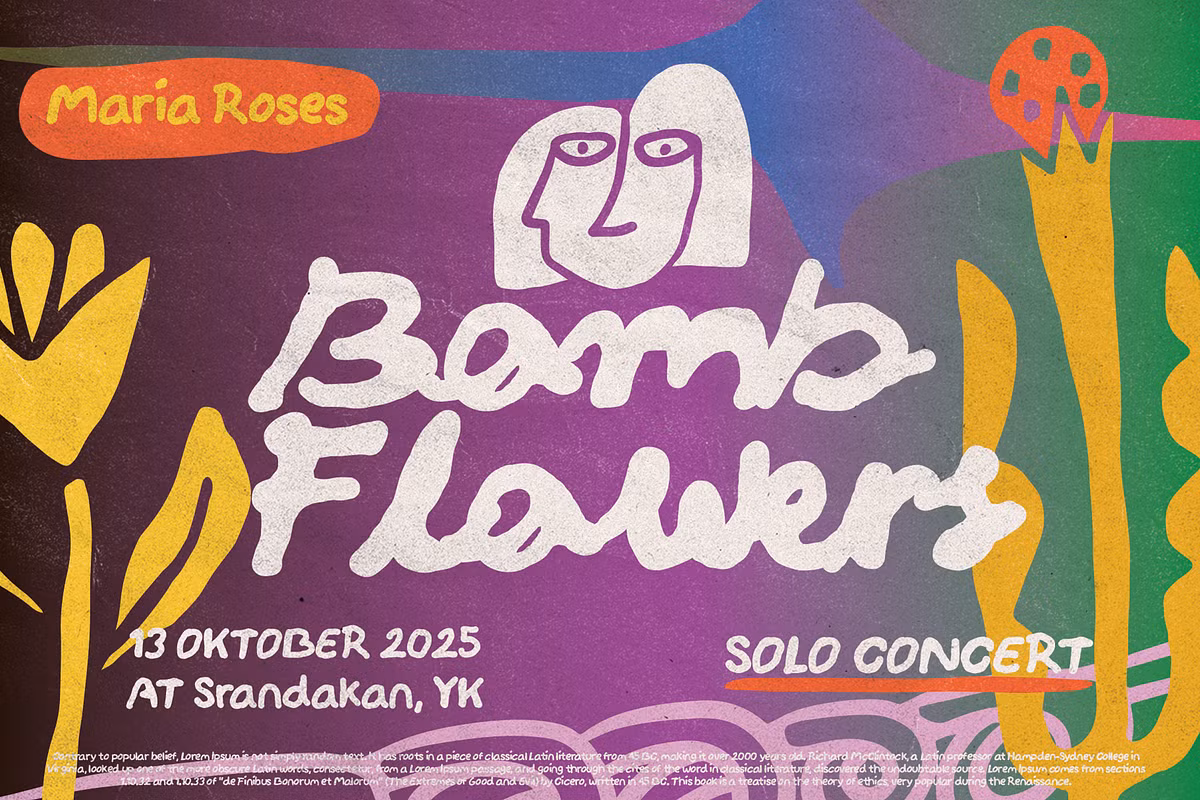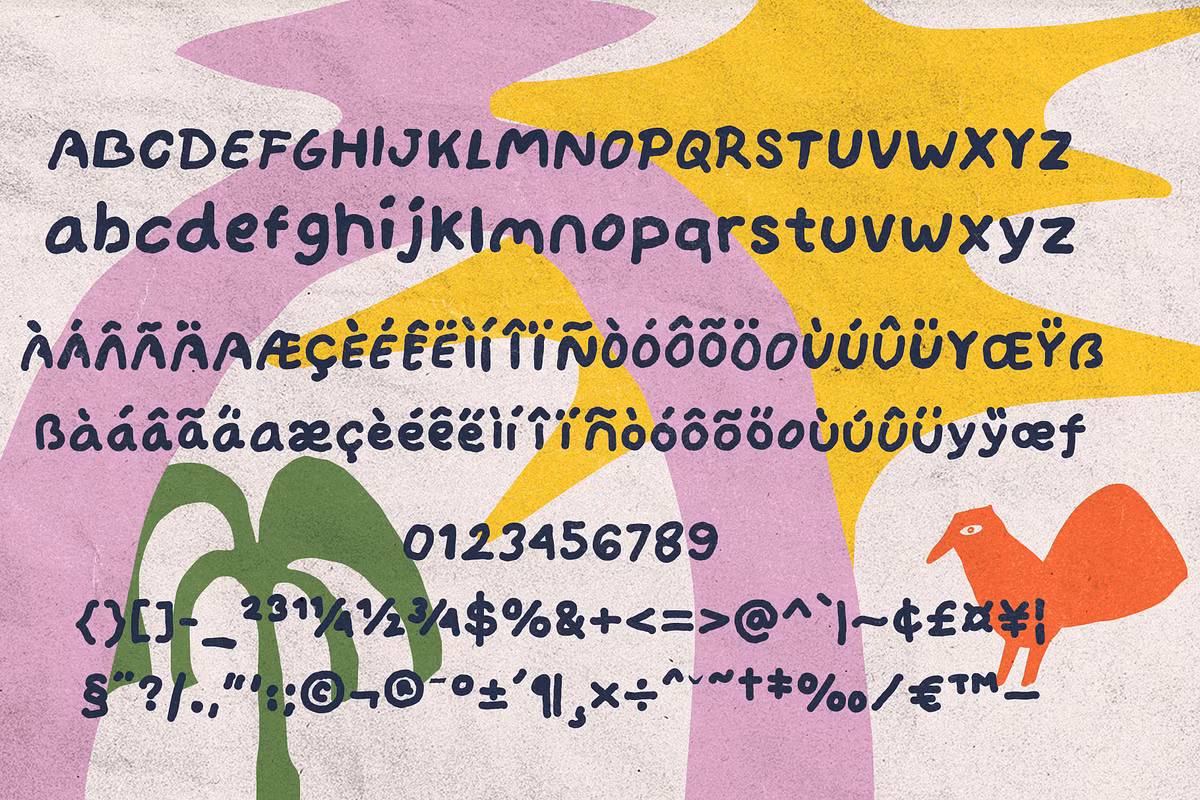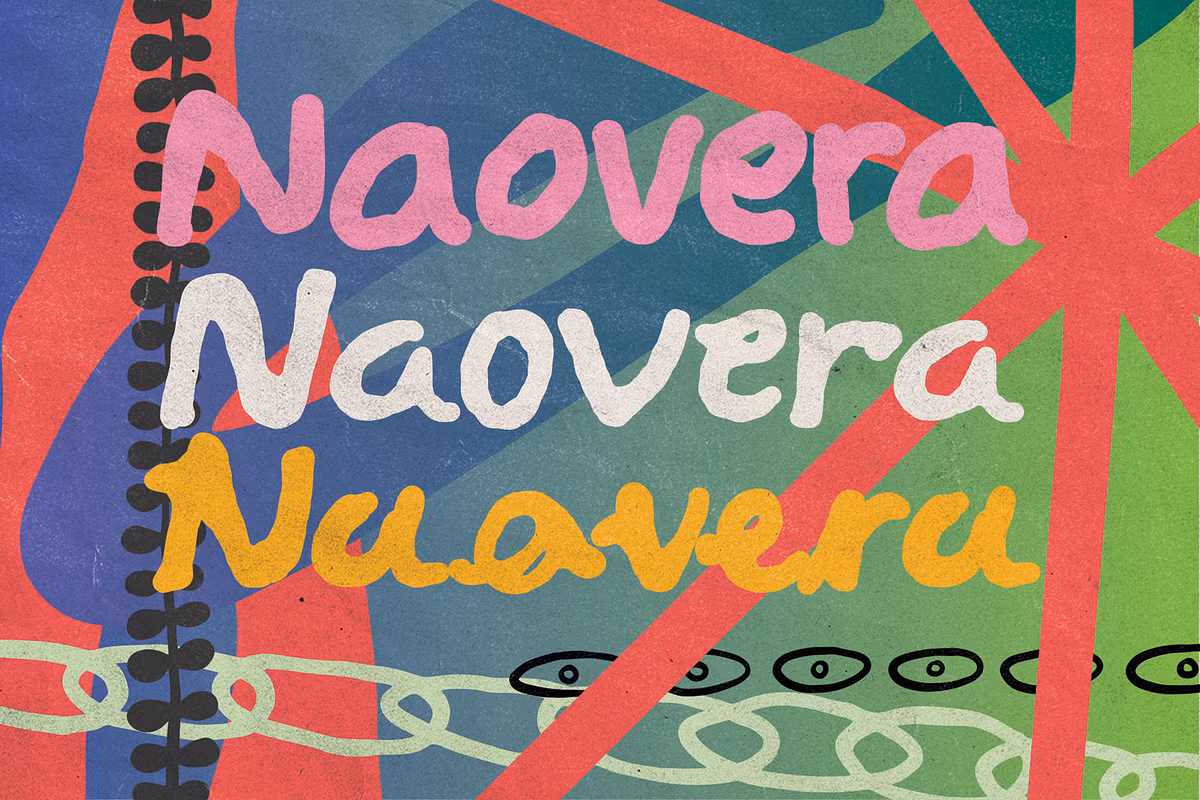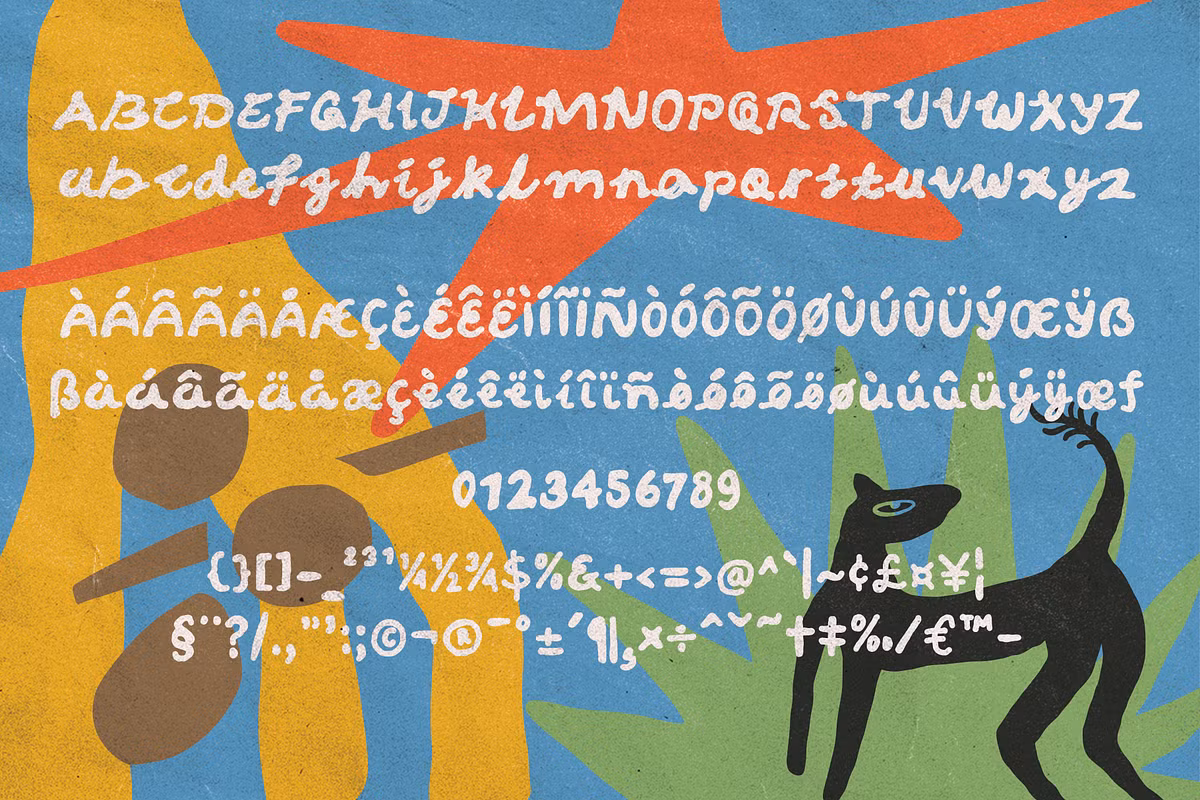
NAOVERA Handwritten: Playful Font with 112 Hand-Drawn Icons
NAOVERA Handwritten
NAOVERA Handwritten: Playful Font with 112 Hand-Drawn Icons
The NAOVERA font shows creativity. I see the NAOVERA font trying to bring the joy you feel at concerts and music festivals. The NAOVERA font has a feel and unique details. The NAOVERA font is more than a font. The NAOVERA font includes 112 hand drawn icons. The NAOVERA font gives designers and creatives options. This article looks at the features of the NAOVERA font, its use cases, and the design possibilities it offers. The NAOVERA font can help you utilize its range in your projects.
Sample of NAOVERA font with hand-drawn icons
NAOVERA font showcasing its playful style.
Design Style of NAOVERA
NAOVERA shows a look that feels fun and free. NAOVERA letters move with lines so each letter looks alive, inviting the eye. The design feels modern and playful. NAOVERA works well for various uses.
• Whimsical Characters: The font has rounded edges and different line thicknesses, looking casual and friendly.
• Creative Flair: Each letter is crafted to show individuality, ideal for projects targeting a creative audience.
• Hand-Drawn Icons: The font includes 112 hand-drawn icons that reflect the fun feel of NAOVERA and are easy to integrate into designs.
Character Sets and Versatility
NAOVERA includes a character set that has the lowercase letters, numbers, and punctuation marks, ensuring you have everything needed to write text.
Examples of NAOVERA characters and special symbols
Character set and special symbols of NAOVERA font.
Besides the characters, NAOVERA also includes special characters and symbols that can enhance designs, adding a unique touch. The availability of these elements allows for experimentation with designs and layouts. I have used the characters and symbols in my designs, and I liked the results.
Language Support
The font supports multiple languages, making it suitable for designers. I utilize the font when a project requires text, ensuring designs can reach a broader audience without compromising aesthetics.
Use Cases for NAOVERA
The playful look of NAOVERA makes it an excellent choice for design projects. Below are a few ways to use NAOVERA:
• Event Promotions: Use NAOVERA for flyers, posters, and social media graphics, especially when promoting concerts, festivals, and other events. The design catches the eye and conveys excitement.
• Branding: If you are designing logos or creating brand materials, NAOVERA’s unique style can help showcase brand personality and values.
• Children’s Products: For products aimed at children, such as books, toys, or educational materials, NAOVERA adds a fun touch, appealing to the target audience.
Display of NAOVERA used in branding and marketing material
Examples of NAOVERA in branding and promotional materials.
When considering typography, pairing fonts can elevate your design. Below are some pairing ideas that complement NAOVERA:
• Sans-serif Fonts: Pair NAOVERA with a clean sans-serif font like Montserrat or Open Sans to balance its playful style with a modern and legible typeface.
• Serif Fonts: For a contrasting look, pair NAOVERA with a serif font like Playfair Display, creating a sophisticated yet fun appearance.
• Other Handwritten Fonts: For a cohesive theme, consider pairing NAOVERA with another handwritten font to maintain a consistent look throughout the design.
With the hand-drawn icons included in the package, you have the flexibility to edit and customize them to fit your project needs. The hand-drawn icons allow for creative expression and make your graphics as unique as your vision.
To sum up, NAOVERA is more than a font; it is a medium to showcase creativity and brings a unique feel to any project. The design of NAOVERA is distinctive, and its large character set, along with the hand-drawn icons, empowers designers to create eye-catching graphics. Whether you are working on event flyers, branding, or children’s products, NAOVERA adds fun and personality to your designs. I personally use NAOVERA when I want to be creative, as it makes my projects shine.